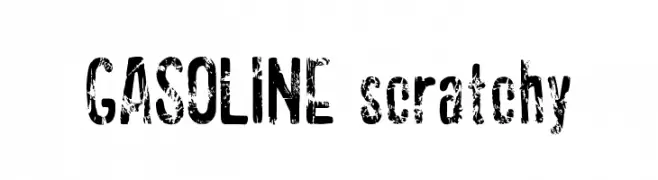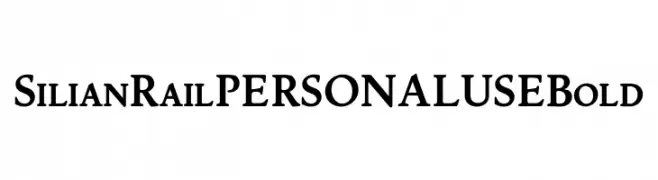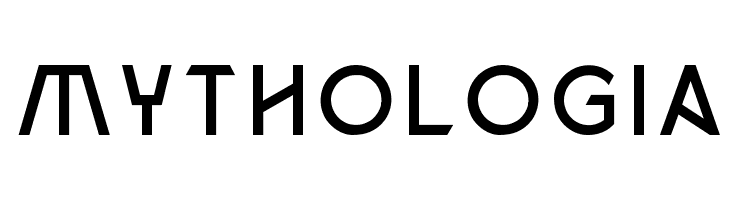
A modern, geometric sans-serif font with clean lines and uniform strokes.
A bold, distressed font with a scratchy, grunge texture.
A bold, futuristic font with geometric angles and a sleek, modern design.
A bold, angular font with a dynamic, slanted style.
A bold, classic serif font with strong, pronounced strokes.